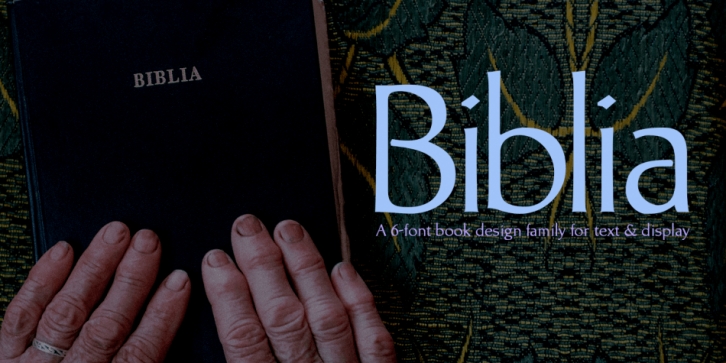
Designed by David Bergsland, Biblia is a sans serif font family. This typeface has six styles and was published by Hackberry Font Foundry.
This all started with a love for Minister. This is a font designed by Carl Albert Fahrenwaldt in 1929. In the specimen booklet there’s a scan from Linotype’s page many years ago. They no longer carry the font. I’ve gone quite a ways from the original. It was dark and a bit heavy. But I loved the look and the readability.
This came to a head when I started my first book on all-digital printing written from 1994-1995, and published early in 1996. I needed fonts to show the typography I was talking about. At that point oldstyle figures, true small caps, and discretionary ligatures were rare. More than that text fonts for book design had lining OR oldstyle figures, lowercase OR small caps—never both.
So, I designed the Diaconia family (using the Greek word for minister). It was fairly rough. I knew very little. I later redesigned and updated Diaconia into Bergsland Pro—released in 2004. It was still rough (though I impressed myself).
In 2006, I found myself needing a readable sans serif. So I went to Bergsland Pro, and eliminated the serifs. I named the font Brinar. I kept a flare in place for the serifs and cupped the ends. I was stunned. People loved it. It’s remained my bestseller until very recently.
So, at the end of 2016 I decided that Brinar really needed some help. The flares were basically random. The stem width and modulation variances all needed to be fixed. My old OpenType feature code was quite limited and clumsy. So I updated the fonts to the 2017 set of features: small caps, small cap figures, oldstyle figures, fractions, lining figures, ligatures and discretionary ligatures. These are fonts designed for book production and work well for text or heads.
· Biblia Regular
· Biblia Italic
· Biblia Medium
· Biblia Medium Italic
· Biblia Bold
· Biblia Bold Italic